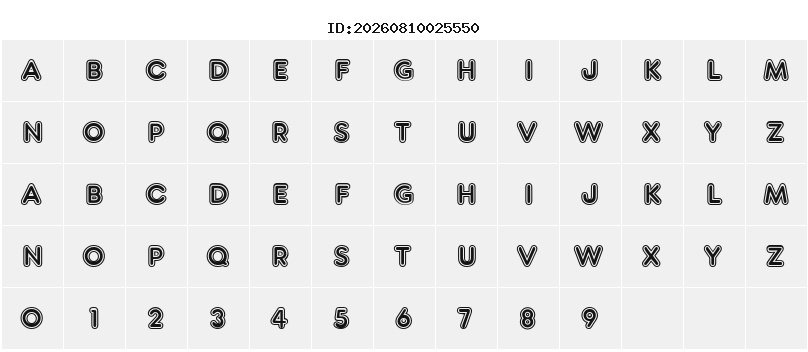
PT Schoolhouse Inline Preview
• Font Name: PT Schoolhouse Inline
• Full Font Name: PT Schoolhouse Inline
About PT Schoolhouse Inline.ttf
PT Schoolhouse Inline.ttf is a modern, elegant sans-serif font designed for ultimate readability and visual harmony. Perfect for branding, headlines, web design, and print materials.